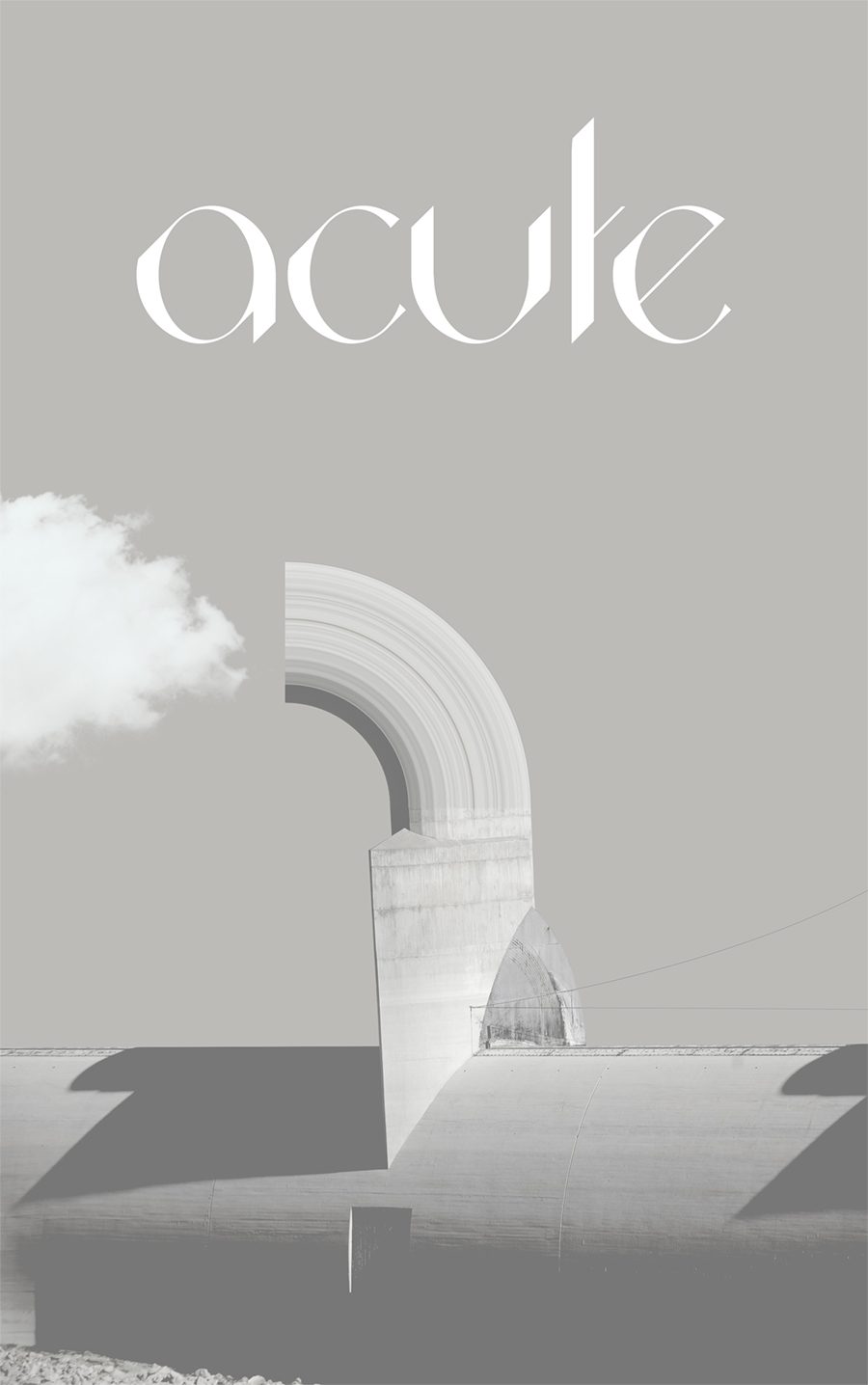
Acute – The Typeface
Acute is a sans serif typeface that combines geometric minimalism and playful thicknesses. Due to the variety of depth and the flow on thick to thin, Acute is a good choice for a big font and large presentations.